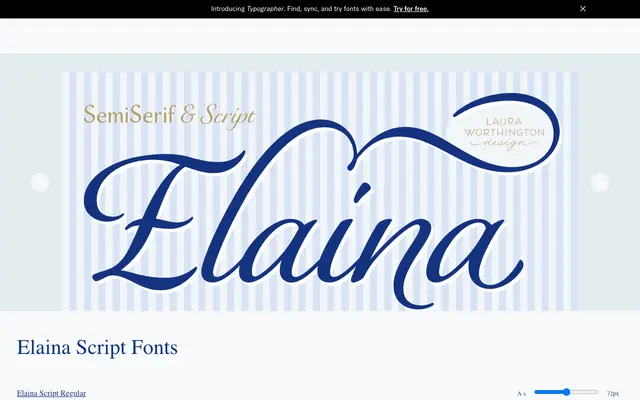
Elaina
A tidily penned connected script drawn closely from Laura Worthington's own handwriting, paired with a semi-serif companion for body text.
Elaina Script keeps a sober x-height with restrained ascenders and descenders, making it readable at smaller display sizes and in short text passages. An unconnected alternate set for the lowercase gives flexibility, while hundreds of swashes, discretionary ligatures and stylistic sets cater to larger-scale logotype and brand identity work. The collection includes Elaina SemiSerif, an upright companion designed for body copy and complementary settings.
Elaina Script is a connected cursive script modelled closely on the designer's own handwriting, with restrained ascenders and descenders and a sober x-height — placing it firmly in the formal/penned script tradition. The companion SemiSerif is a complementary roman for body contexts.